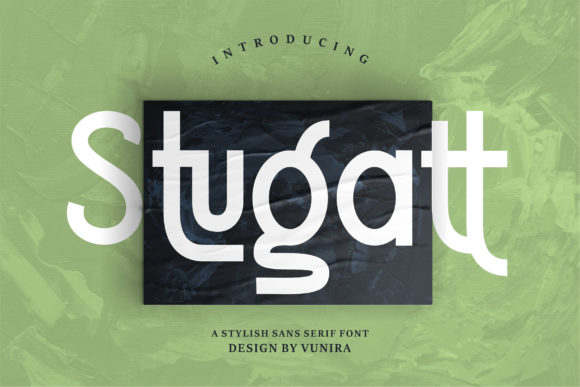
Stugatt Font: Elevating Boutique Web Design
I was staring at a hero section for a new artisanal skincare client, feeling completely stuck. The layout was clean, the photography was ethereal, and the copy was persuasive, but something vital was missing. The sans serif headline felt too corporate, and the standard serif options lacked the personal touch this brand desperately needed. That is when I loaded Stugatt into my design software, and the entire mood of the landing page shifted instantly. Stugatt feels equally charming and elegant, transforming a sterile digital interface into something that feels handcrafted and intentional. As web designers, we often hunt for Script Handwritten Fonts that can bridge the gap between luxury branding and digital usability, and this typeface proved to be the exact solution for creating an emotional connection above the fold.
Using Stugatt for Hero Sections and Landing Page Headlines
When integrating Stugatt into website headers and hero banners, the primary goal is to capture attention without sacrificing clarity. This stunning handwritten font is a stylish homage to classic calligraphy, which makes it exceptionally effective for large-scale display text where the intricate details of the letterforms can actually breathe. In my recent project, I used Stugatt for the main value proposition, keeping the text size significantly larger than usual to showcase the fluid connections and organic swashes. Unlike many script fonts that become illegible when scaled up due to thin stroke weights, Stugatt maintains a confident presence on high-resolution monitors and retina displays. It elevates a wide range of design projects to the highest level, be it brand storytelling or product launches, because it reads as a deliberate design choice rather than an afterthought. For UI designers working on campaign landing pages, this font serves as a powerful visual anchor that guides the user’s eye directly to the core message while establishing a premium tone immediately upon load.
Stugatt Readability on Mobile Screens and Responsive Layouts
Testing Stugatt across different viewport sizes revealed important insights about responsive typography and mobile-first design. While Script Handwritten styles are notoriously difficult to read on small screens, Stugatt performs surprisingly well when given adequate padding and line height. During the mobile preview phase, I found that reducing the font weight slightly and increasing the tracking helped maintain legibility against complex background images. It is crucial to avoid using this typeface for dense paragraphs or navigation menus; instead, reserve it for short, impactful phrases like "Shop the Collection" or "Begin Your Journey." When placed over dark overlays or gradient backgrounds, the contrast remains sharp, ensuring that accessibility standards are met without compromising the aesthetic charm. For digital product creators building course sales pages or coaching websites, this means you can use Stugatt to highlight key testimonials or module titles on mobile devices without frustrating users who are scanning content quickly. The key is treating it as a graphical element that supports the user journey rather than a utility font meant for extended reading.
Pairing Stugatt with Sans Serif Fonts for Digital Brand Kits
Creating a cohesive visual identity requires balancing the ornate nature of Stugatt with structured, neutral typefaces for body copy and interface elements. Fonts in the geometric sans serif category, such as Montserrat or Outfit, provide the perfect counterpoint to Stugatt’s flowing curves, creating a modern typography system that feels both sophisticated and functional. In the boutique online store case study, I paired Stugatt exclusively with a clean sans serif for product descriptions, pricing, and button labels to ensure frictionless shopping experiences. This contrast establishes a clear visual hierarchy: Stugatt handles the emotional heavy lifting in headlines and accent graphics, while the supporting typeface manages information architecture and readability. For entrepreneurs building digital brand kits, this pairing strategy ensures consistency across web platforms, social media templates, and email newsletters. The elegance of Stugatt draws the audience in, but the reliable structure of the secondary font keeps them engaged and moving through the conversion funnel. Avoid pairing it with other decorative scripts or highly stylized serifs, as this creates visual competition that dilutes the brand impact and confuses the scanning behavior of website visitors.
Applying Stugatt to Portfolio Sites and Creative Business Branding
Creative professionals and service providers often struggle to convey personality through standard web typography, making Stugatt an invaluable asset for portfolio homepages and personal branding. When designing for photographers, wedding planners, or wellness coaches, this font adds a layer of authenticity that stock imagery alone cannot achieve. I utilized Stugatt to create custom signature-style logos and section dividers that reinforced the bespoke nature of the services offered. Because it is a stylish homage to classic calligraphy, it signals craftsmanship and attention to detail—traits that high-end clients actively seek. On a coaching website, using Stugatt for pull quotes or personal notes from the founder breaks up the monotony of standard web layouts and fosters a sense of intimacy. However, it is essential to use restraint; limiting its application to three or four key touchpoints per page prevents the design from feeling cluttered or overly sentimental. This strategic placement ensures that every instance of Stugatt serves a specific UX purpose, whether that is building trust, highlighting a unique selling proposition, or guiding the user toward a contact form.